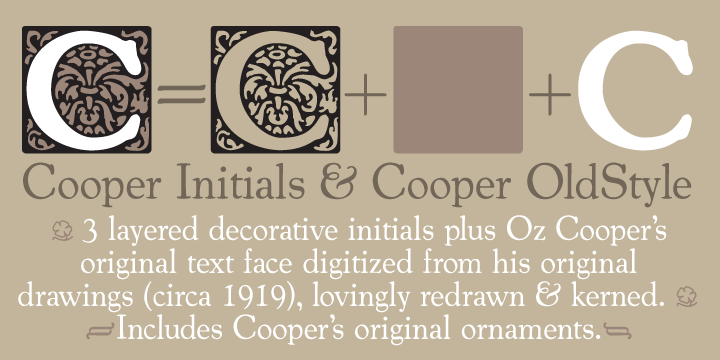
Cooper Text is a comprised of two fonts- Cooper OldStyle and Cooper Initials. Cooper OldStyle is a round-serifed text typeface, while Cooper Initials are ornamental capitals designed for use as complementary drop caps.
Cooper OldStyle has been lovingly redrawn from Oswald Bruce Cooper’s original drawings and mechanical proofs while Cooper Initials have been drawn from a sample in the seminal monograph of Cooper’s work, The Book of Oz. More…
Cooper OldStyle was originally released as a non-kerning typeface, which offered limited use for text setting. Oz Cooper was never quite happy with the copious amount of “air” around the typeface’s characters, so this definitive version has been painstakingly spaced and kerned for even text-setting.
Cooper Initials is a set of three typefaces:
- Cooper Initials, the base form derived from Cooper’s original design
- Cooper Ground, blocks of solid color that match the proportions of the Initials and which can be used to add a background color to the typefaces through layering
- Cooper Capitals, the lone letterforms within the initials, which can be layered to add highlight color to the letterform component of the set
These typefaces can be paired with Cooper Italic Complete for setting long lengths of text.
The history of these typefaces:
Cooper OldStyle is the result of Barnhart Brothers & Spindler type foundry representatives Richard N. McArthur and Charles R. Murray having met with Oswald Cooper and his business partner Fred Bertsch in 1917. Due to other commercial design firms adopting Cooper’s style of lettering throughout the Midwest, both companies came to an agreement to create a family of types based on Cooper’s advertising lettering. McArthur and Murray saw the biggest potential in the super-bold advertising lettering that would become Cooper Black, but agreed that a roman weight old style should be executed first, the logical progenitor to a family or related types.
The foundry requested that the roman have rounded serifs so as to more specifically correlate to the planned bold. This was the first of many tactical strategies in type design between type designer and foundry, most specifically McArthur and Cooper, whose back-and-forth relationship in designing, critiquing, and modifying letterforms was integral in shaping the oeuvre of type designs credited to Cooper. While it was Cooper’s sheer talent in shaping appealing and useful alphabets that made his work so popular, McArthur’s role as critic and editor has gone largely un-noted in the slim amount of writing of length about Cooper’s work.
Cooper and McArthur went back and forth over the design of the roman face for nearly two years with Cooper, constantly redrawing and revising the typeface to get it to a castable state. The capitals were successively redrawn by Cooper, with particular care paid to the “B” and “R” to make them relate formally. The lowercase was redrawn numerous times, as were experiments in shaping the punctuation. McArthur requested a pair of dingbats to accompany the typeface, along with a decorative four leaf clover ornament “for luck”.
Cooper included a slightly iconoclastic, cartoonish paragraph mark, as well as decorative end elements, a centered period, and brackets with a hand-drawn feel.
The final typeface is a lively, bouncy conglomeration whose rounded forms dazzle and move the eye. Originally called merely “Cooper” in early showings, the name was later revised to “Cooper Oldstyle”. The typeface met with a warm reception upon release in 1919, the public favoring its advertising-friendly, tightly-spaced appearance. Sales were moderate, and the face was considered a success.
Cooper originally drew the figures the same width as the “M” of the font, but revised them to the width of the “N” at the request of McArthur. Early versions of drawings of the slimmer figures are noted as “cruel stuff” in accompanying notes by Cooper, though they were versioned out into far more elegant numerals than the earlier stout figures. Both versions of the numerals are included in the digital release, as are the ornamental elements.
In 1925, McArthur and Murray requested a set of ornamental initials. Cooper designed the initials open-faced on a square ground surrounded by organic ornament. The initials were “intended to be nearly even in ‘color value’ with that of normal text type”. The letterforms themselves are a medium-bold variation on the Cooper OldStyle theme, lacking the balance of Cooper’s text faces, but charming nonetheless.
Cooper Initials are offered in their original capital alphabet form in this digital version, with no supplementary characters.